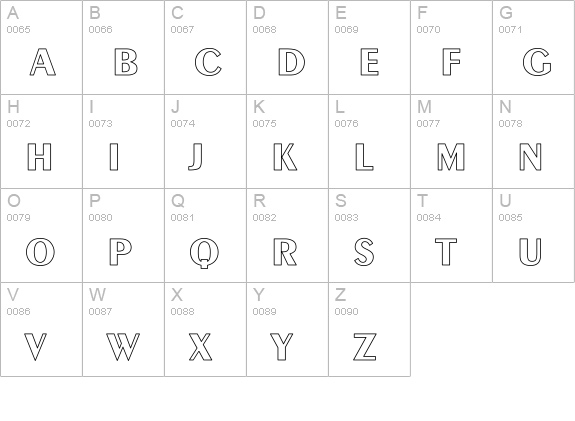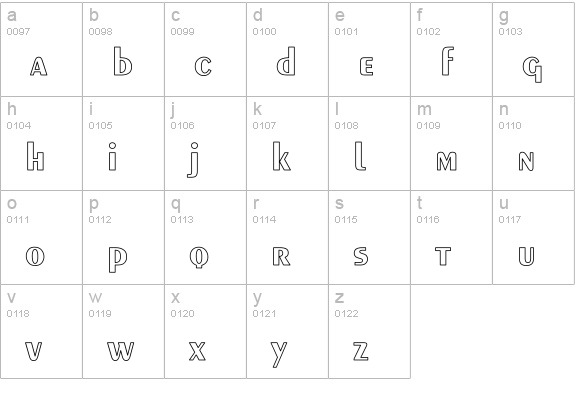
Exotic-Bold Hollow Font Details
Exotic-Bold Hollow is a strong, high-contrast variant in the Exotic typeface family \xE2\x80\x94 well suited to headlines, attention-grabbing titles, and strong calls-to-action.
Introducing Exotic-Bold Hollow font, a striking and unique typeface that exudes an air of exoticism and boldness. This font features intricate hollow letterforms that add a touch of sophistication to any design project. What sets Exotic-Bold Hollow font apart is its free-spirited aesthetic, making it perfect for creating eye-catching headlines, logos, and branding materials that demand attention. With its sleek and modern design, this font is sure to leave a lasting impression on viewers. Best of all, Exotic-Bold Hollow font is freely available to download at FontsMarket.com. Whether you're a designer looking to add a touch of flair to your work or simply seeking a standout font for personal projects, Exotic-Bold Hollow font is the perfect choice. Download it today and unleash your creativity with this captivating and stylish typeface.